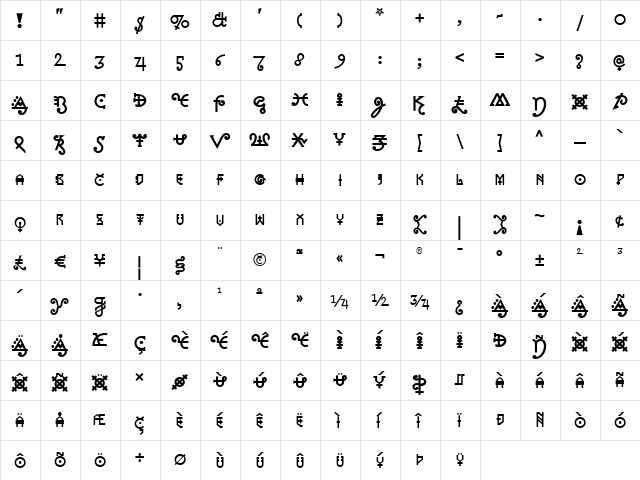
Lesser Arcana NF Regular
Design Context for Lesser Arcana NF Typeface
Lesser Arcana NF is a composed and adaptable typeface that performs quietly and consistently across a wide range of design contexts.